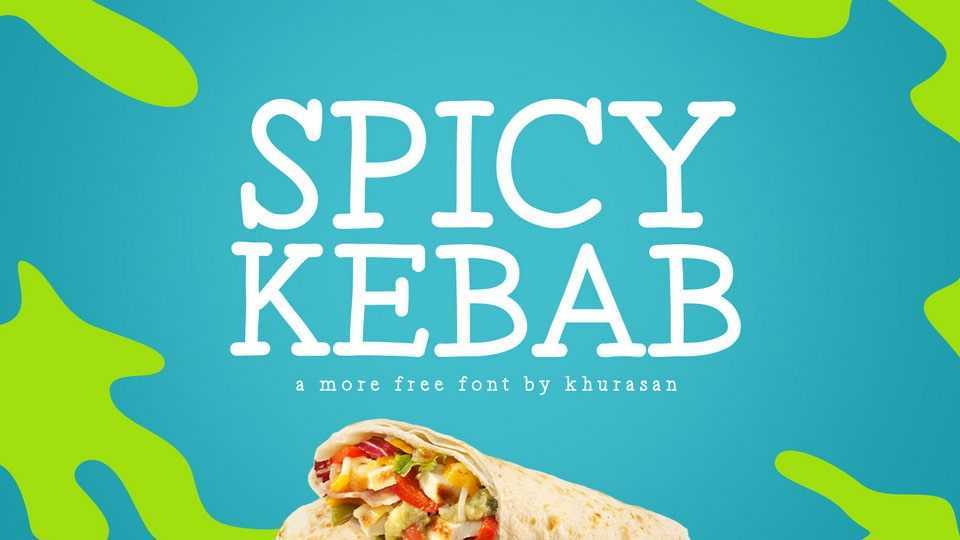
Download Spicy Kebab font, a hand-drawn typewriter font that brings a playful and funny character to every letter. Spicy Kebab font features a charismatic and carefree design, with each letter exuding a sense of cheerful spontaneity.